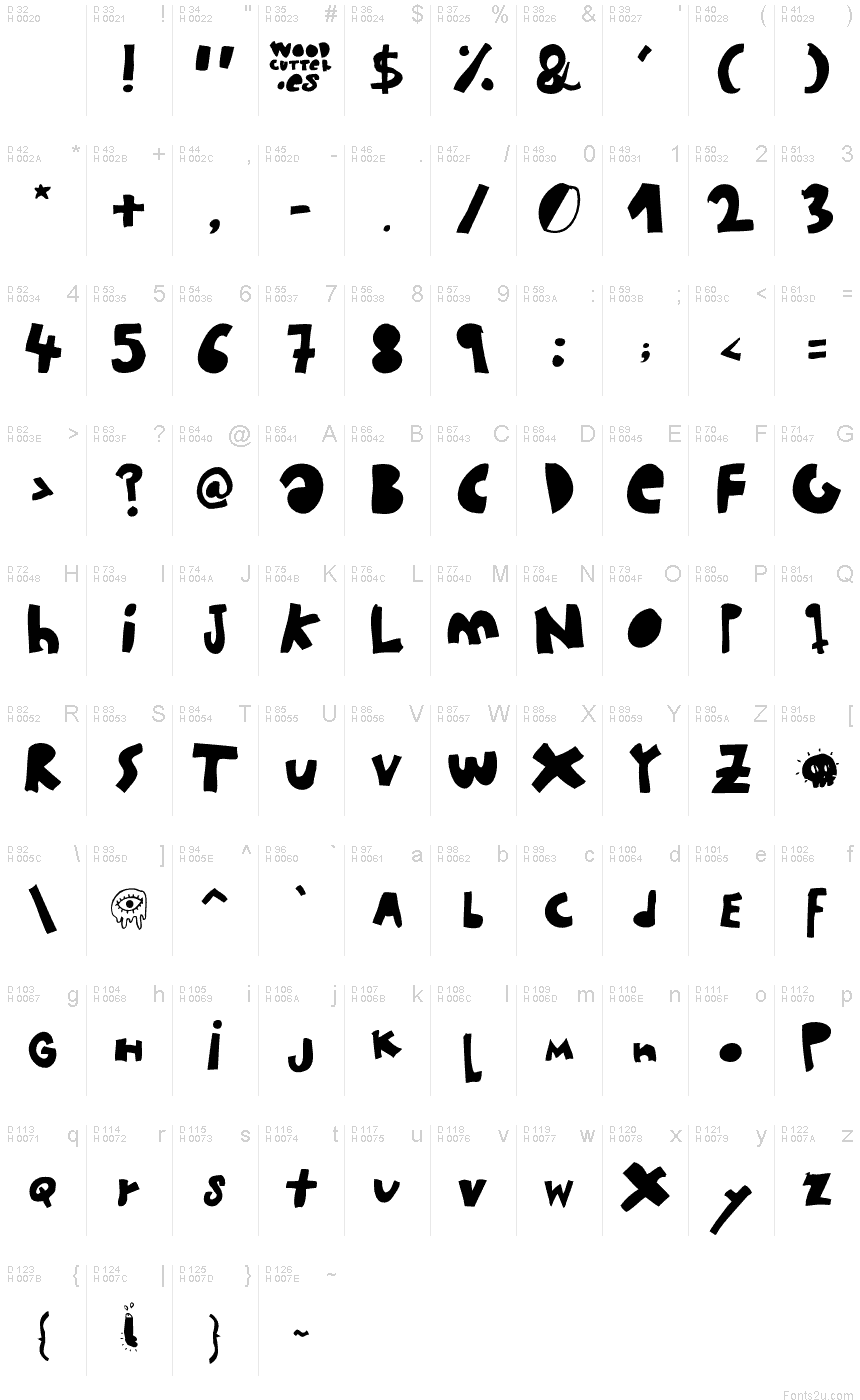
woodcutter MMXII
Woodcutter MMXII is a free comic display font with oversized, uneven forms that look cut from thick paper by hand, giving each letter a blunt, cheerfully awkward silhouette. The shapes lurch between broad curves and sudden angular cuts.
Its chunky humor can push children's book covers and toy packaging toward a rowdy, homemade style, yet the same irregular weight also suits indie music posters and casual event graphics where formal typography would feel too polished. The letters can become part of the illustration itself, echoing torn collage pieces, painted props, or simple cartoon shapes instead of behaving like neutral captions.